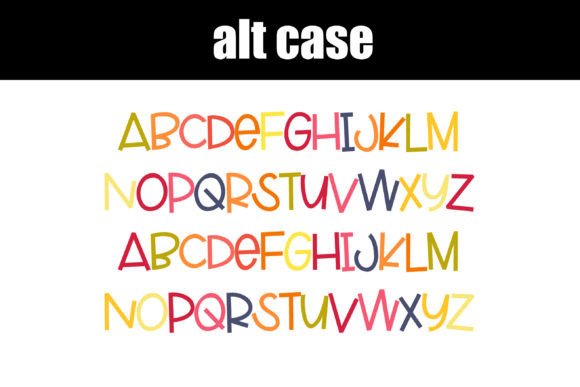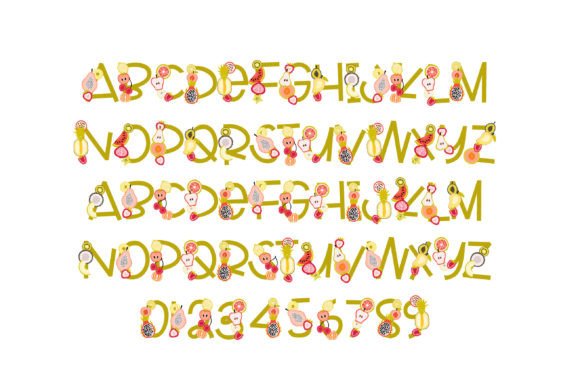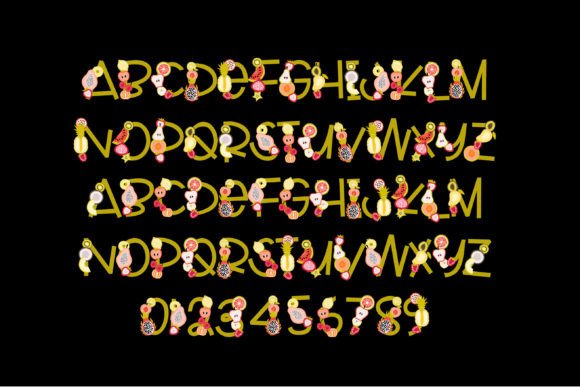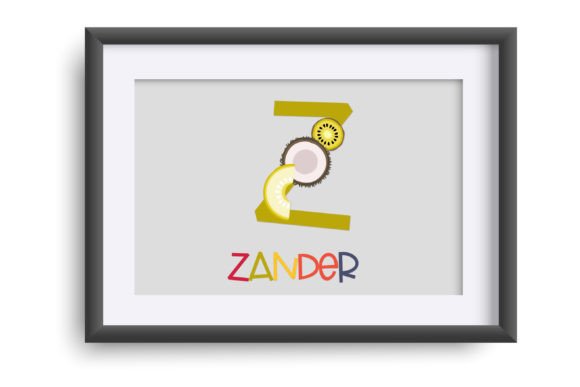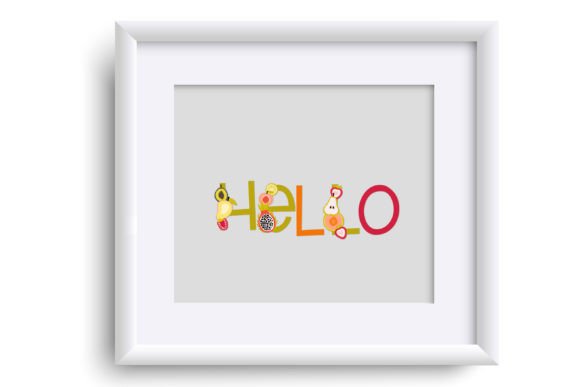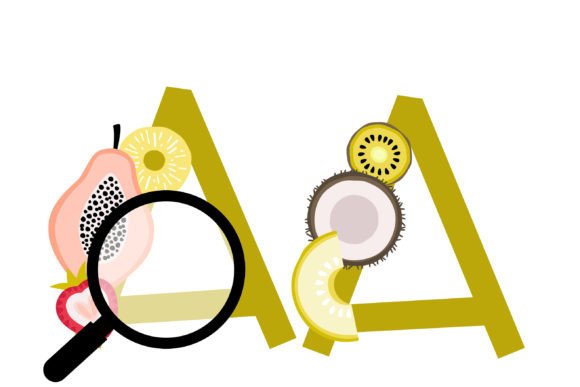
Fruitilicious Font: A Deliciously Colorful Addition to Your Design Toolbox
Are you tired of using the same old boring fonts in your designs? Look no further than the Fruitilicious Font, a vibrant and playful full-color font that’s sure to add a pop of personality to your work. This unique font features a simple sans-serif design with stacked fruit, making it perfect for designers and crafters looking to add a touch of whimsy to their projects.
What is Fruitilicious Font?
Fruitilicious Font is a full-color font that features a simple sans-serif design with stacked fruit. The font comes with an alt case of additional colors that can be accessed through your system’s character map, giving you a wide range of colors and styles to choose from. This font is perfect for designers and crafters who want to add a touch of personality to their work, whether it’s a simple text logo or a complex illustration.
Benefits of Using Full-Color SVG Fonts
Full-color SVG fonts like Fruitilicious Font offer a range of benefits for designers and crafters. Some of the benefits include:
- Personality and whimsy: Full-color SVG fonts add a touch of personality and whimsy to your designs, making them stand out from the crowd.
- Flexibility: With a full range of colors and styles to choose from, you can create anything from simple text logos to complex illustrations.
Tips for Using Fruitilicious Font
Here are a few tips for using Fruitilicious Font in your designs:
- Experiment with different colors and styles: Don’t be afraid to try out different colors and styles to find the look that works best for your project.
- Use it for headings and titles: Fruitilicious Font is perfect for headings and titles, where you want to make a bold statement.
- Mix it with other fonts: Try mixing Fruitilicious Font with other fonts to create a unique and interesting look.
Fruitilicious Font is a deliciously colorful addition to any design toolbox. With its simple sans-serif design and stacked fruit, it’s perfect for designers and crafters looking to add a touch of whimsy to their projects. Whether you’re creating a simple text logo or a complex illustration, Fruitilicious Font is a great choice. So why not give it a try and see what kind of amazing designs you can create?